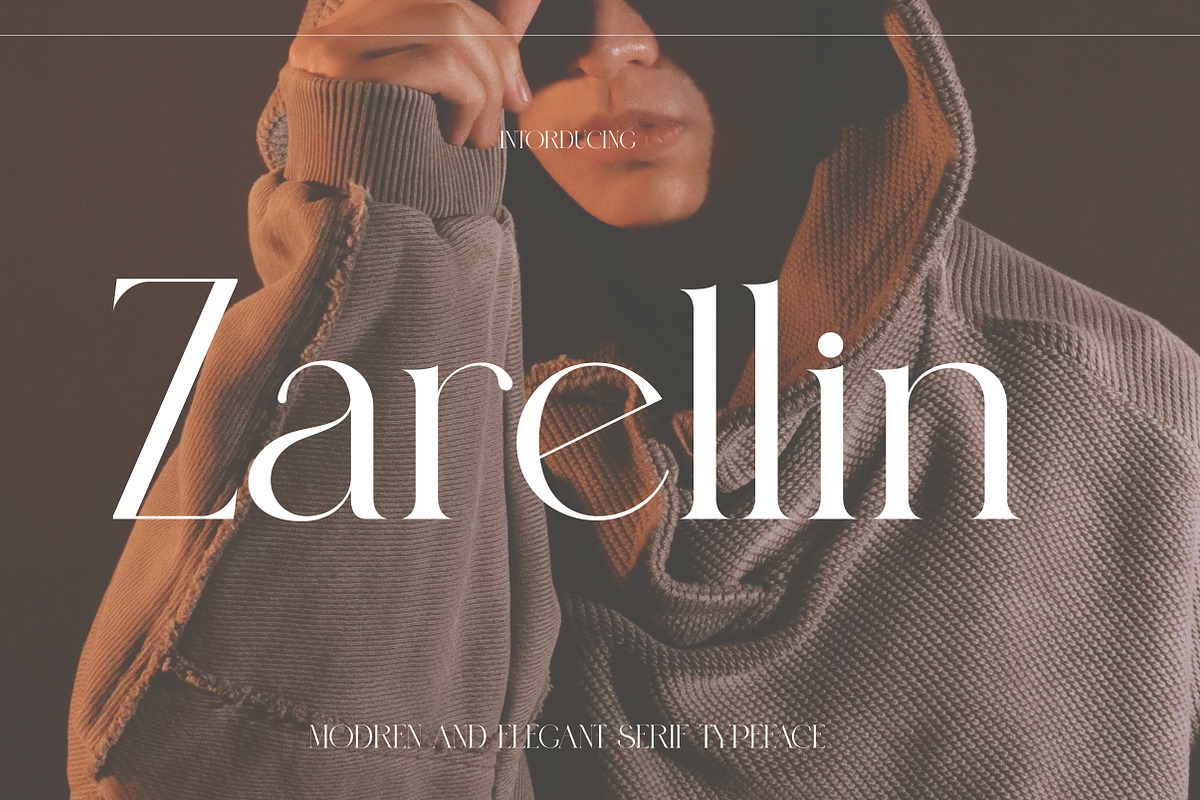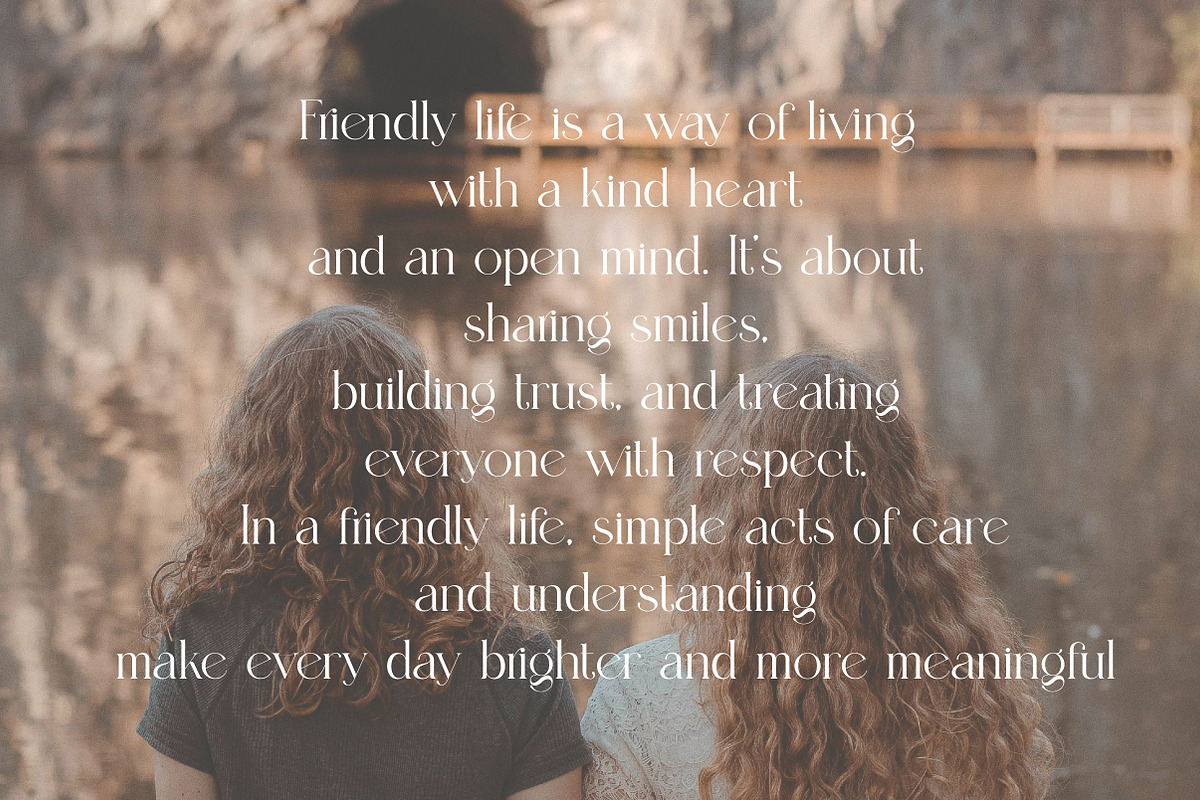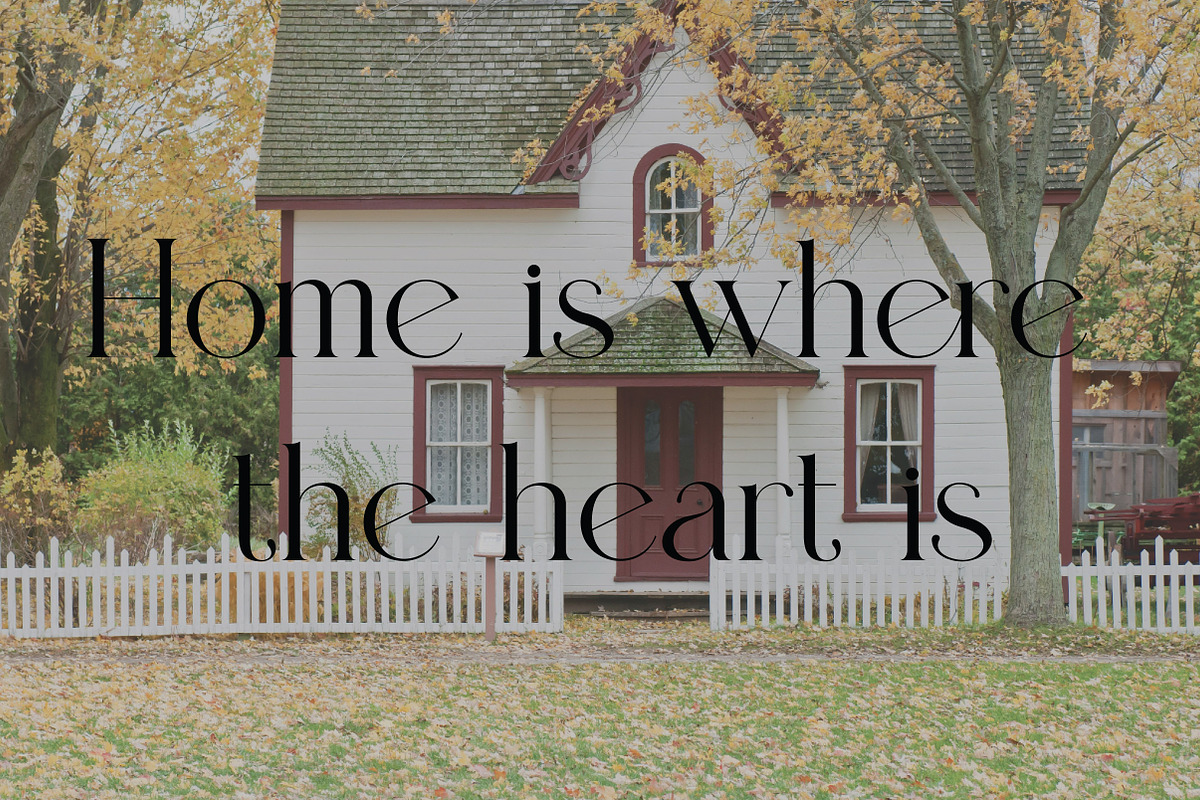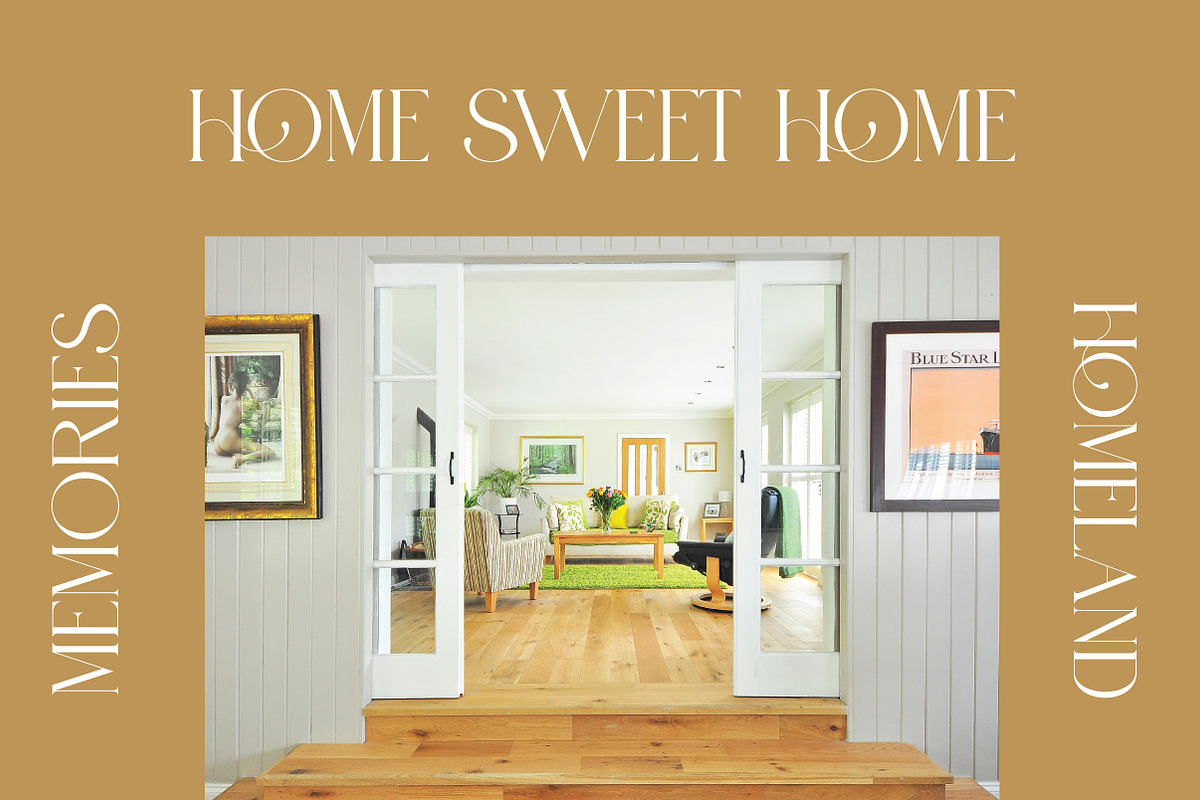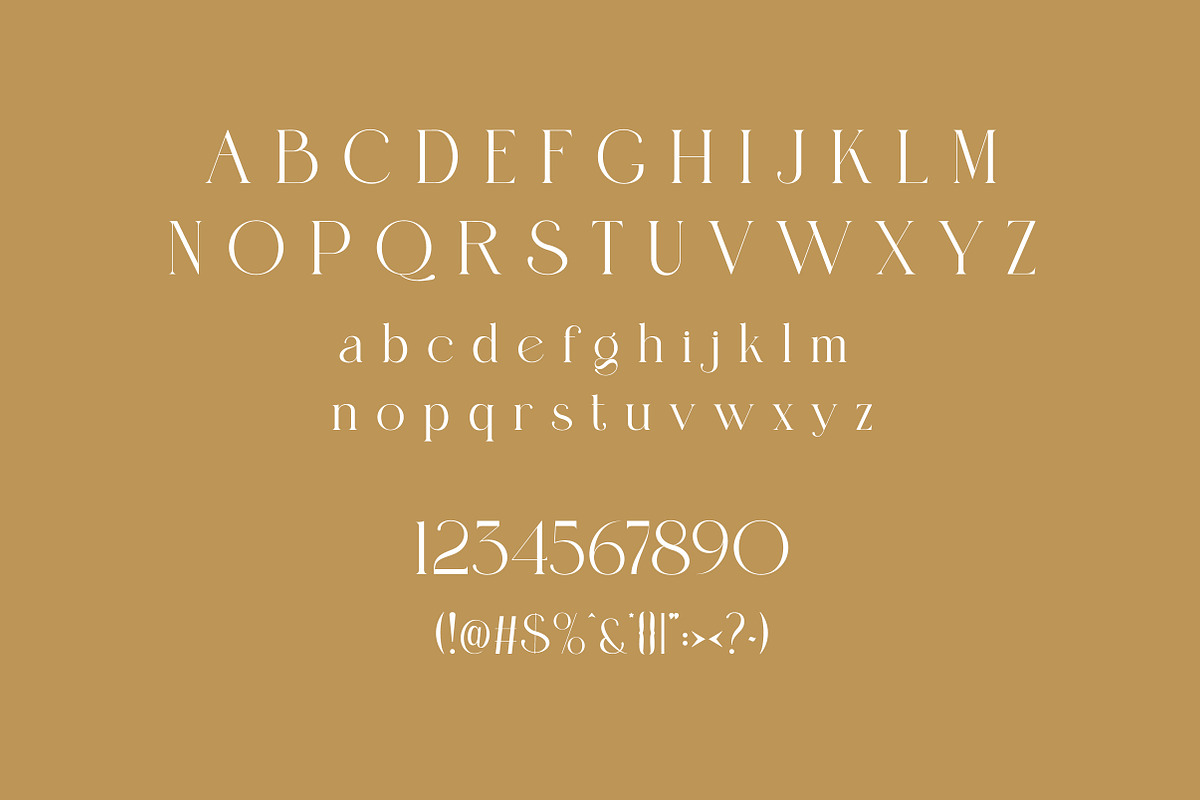
Zerellin | Elegant Modern Serif Type
Zerellin is a clean and modern serif typeface designed to balance elegance and simplicity. The Regular style features sharp serifs, smooth curves, and clear, well-proportioned letterforms—making it ideal for branding, editorial layouts, packaging, logos, websites, and minimalist print materials.
Zerellin is crafted for legibility and versatility, performing beautifully in both headlines and body text. Its professional yet approachable design gives your work a classic feel with a contemporary finish—perfect for creatives who value structure, clarity, and style.
Zerellin is a must-have serif font for designers seeking timeless versatility with a clean, modern aesthetic.